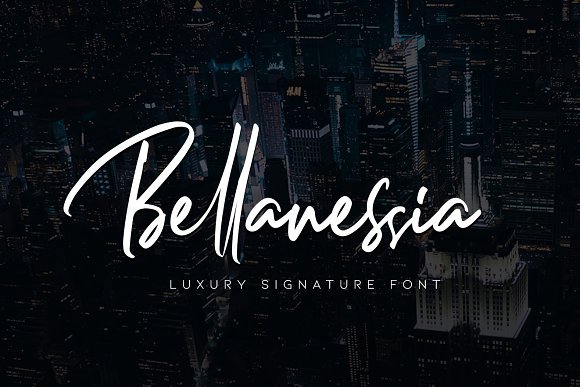
Bellanessia Signature Font
Hi Designer! If you are in need of a handwritten font style signature, Befonts will introduce you. Introducing Bellanessia Font. It is designed and shared by MLKWSN studios. Bellanessia is a luxury signature font with 2 style regular and italic. Inspired by luxury and branded stuffs make this font looks classy and awesome in many way to your latest project.
Bellanessia is perfect for logos & branding, photography, invitation, watermark, advertisements,product designs, stationery, wedding designs,label ,product packaging, special events or anything that need handwritting taste.